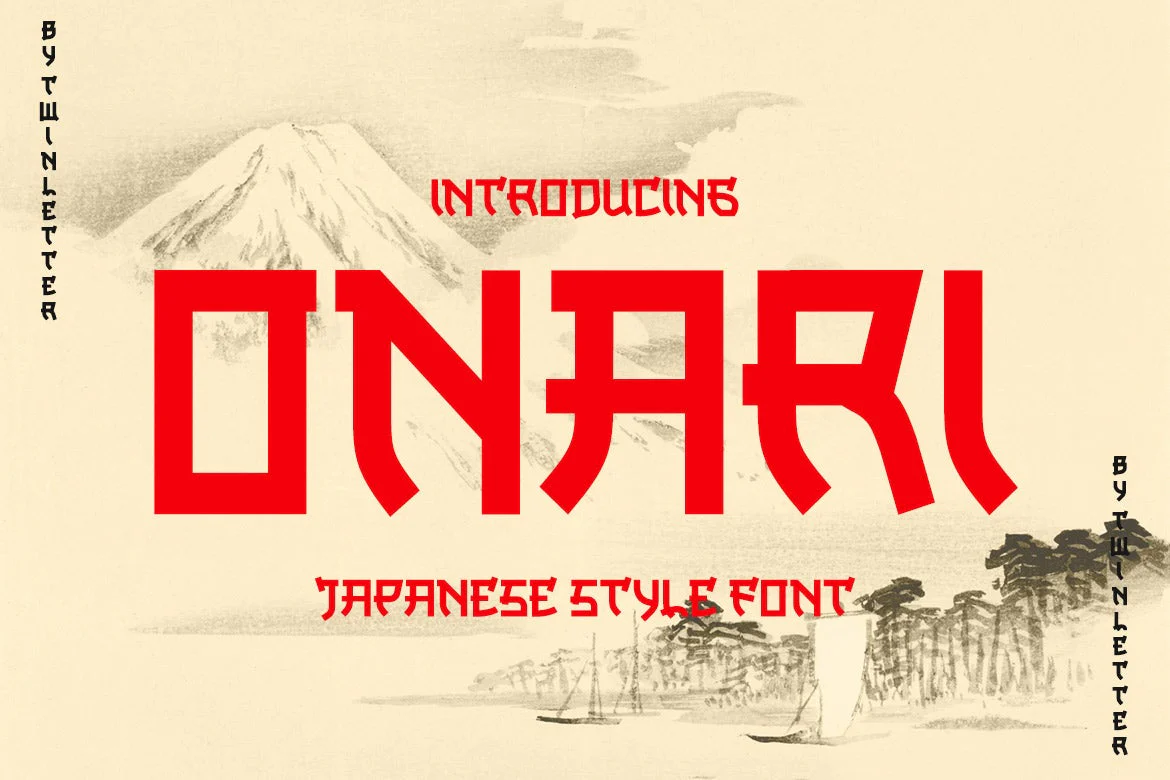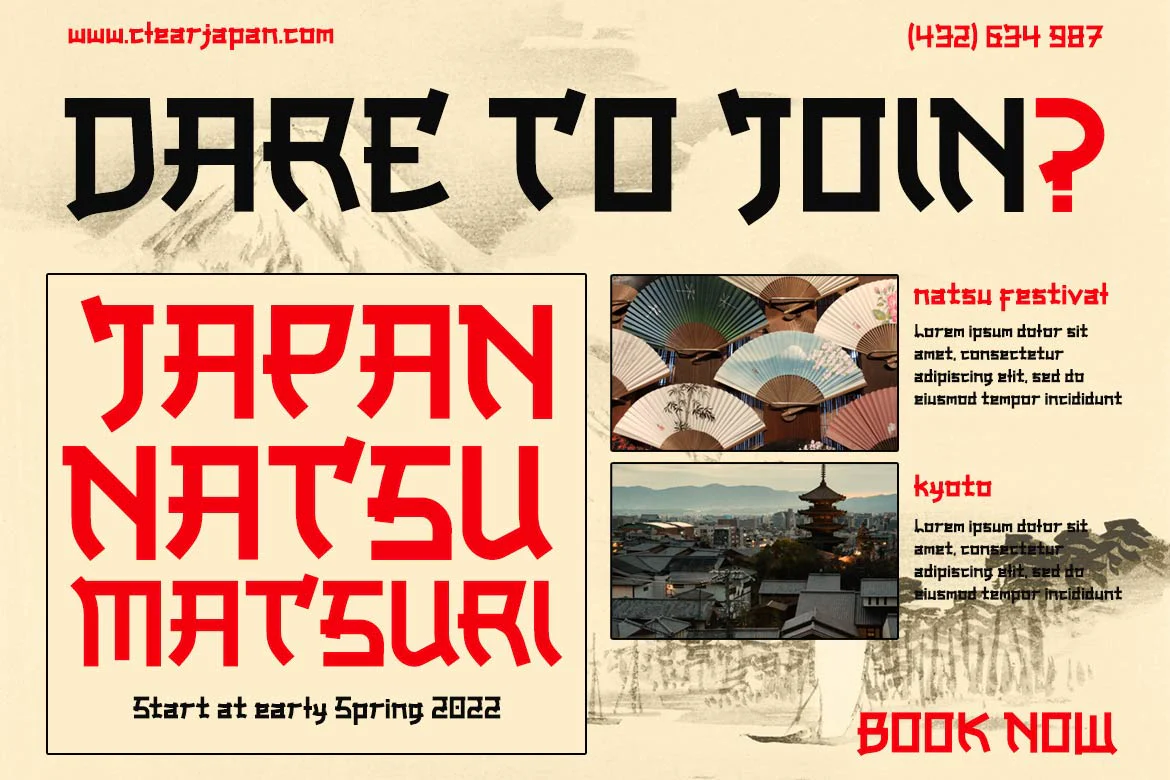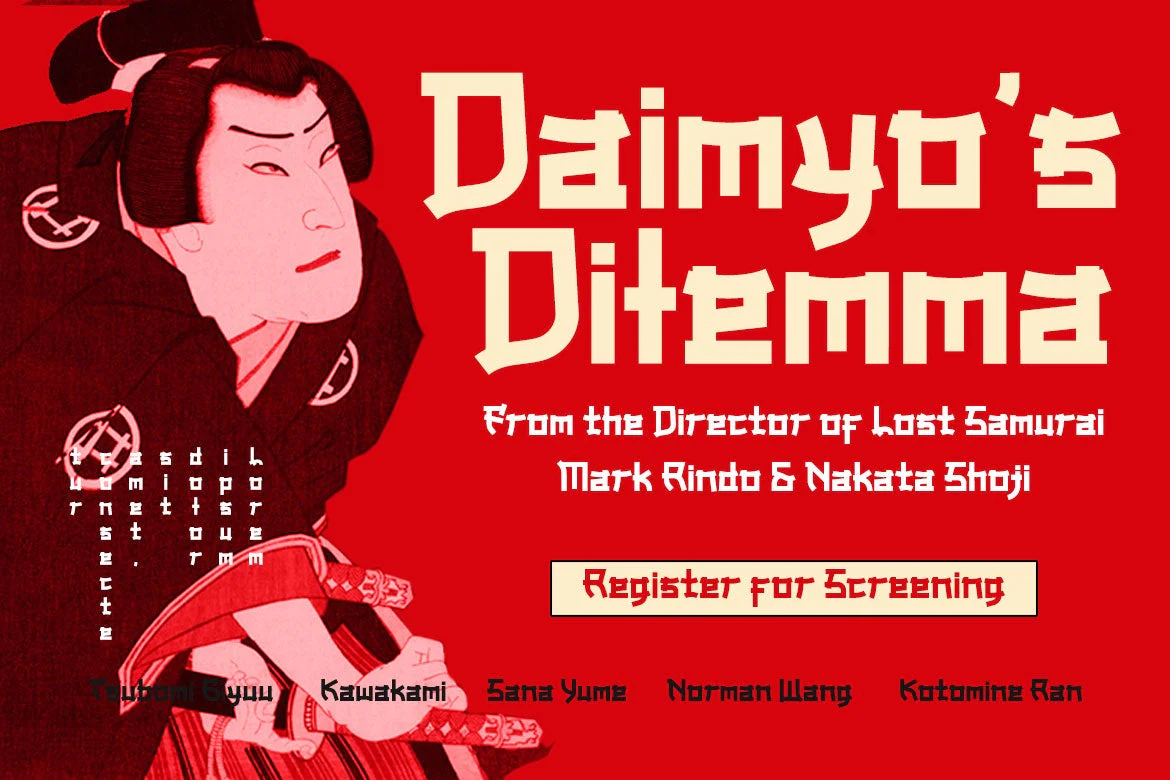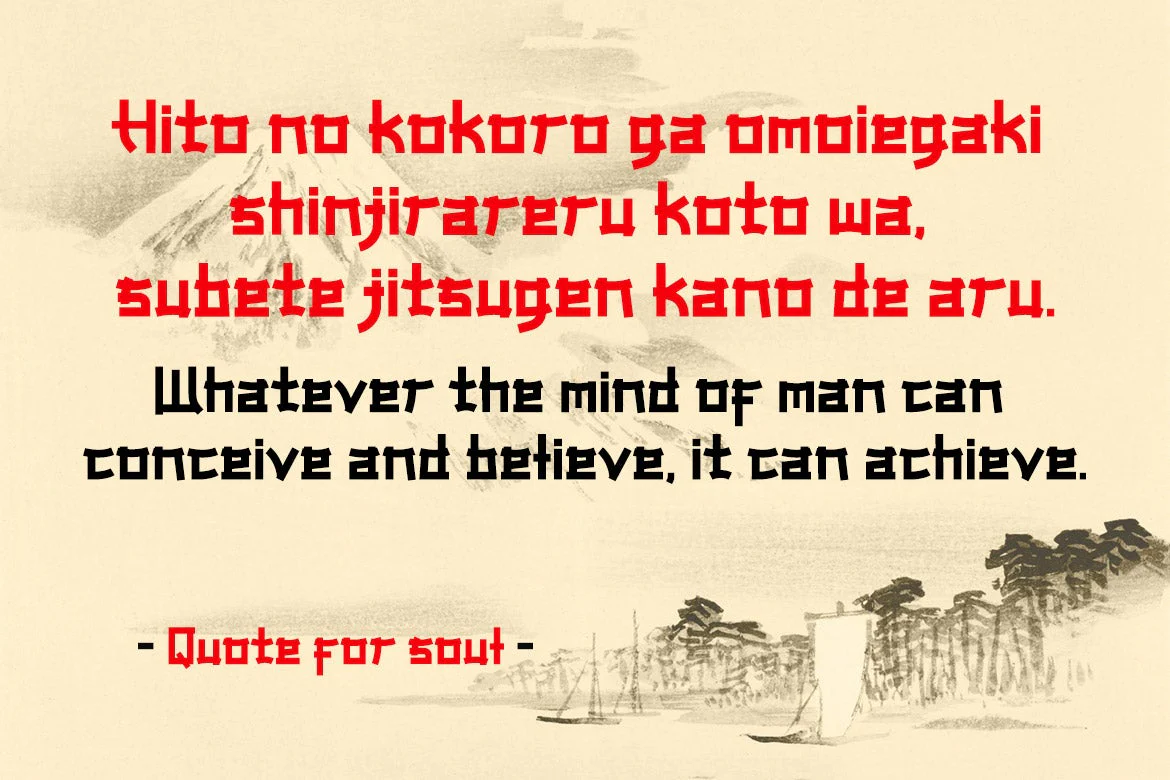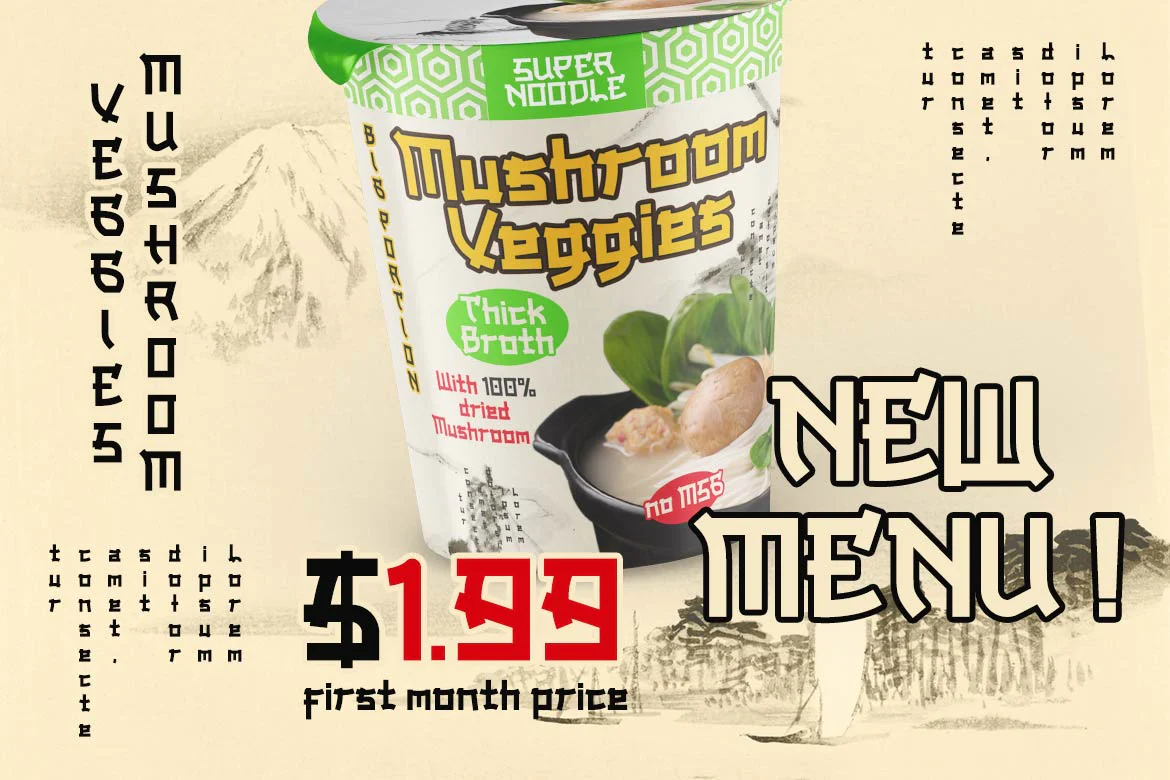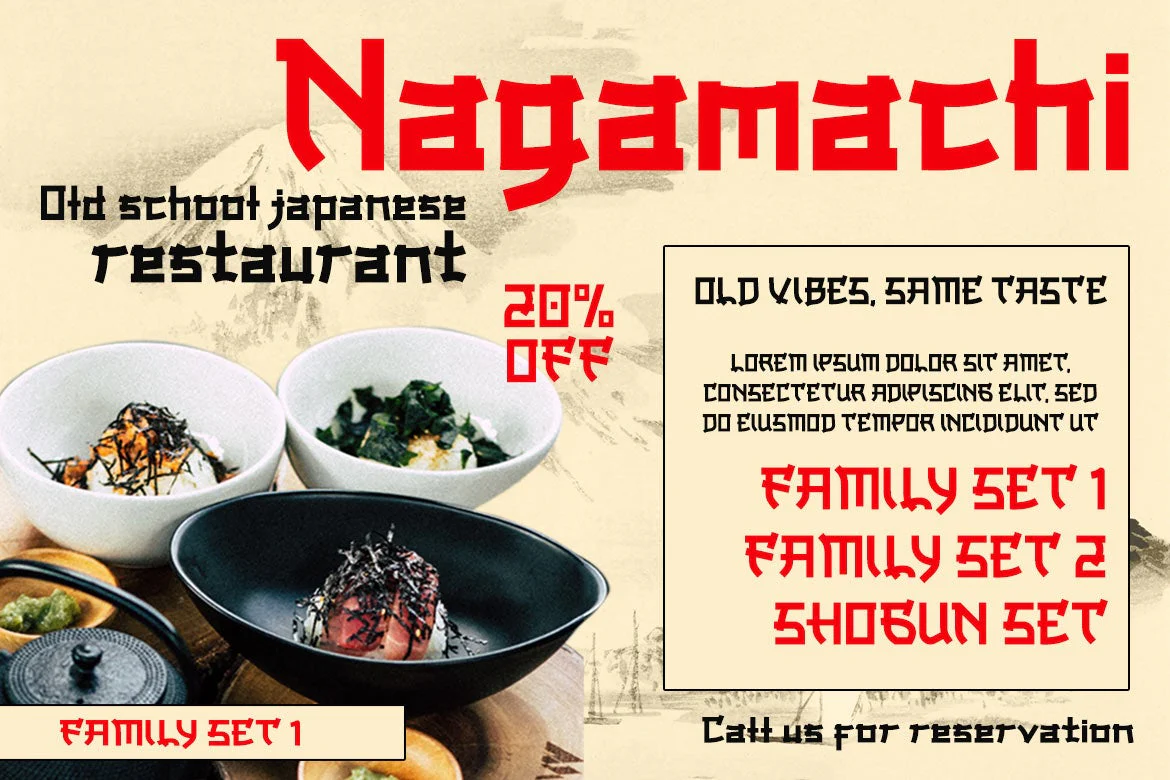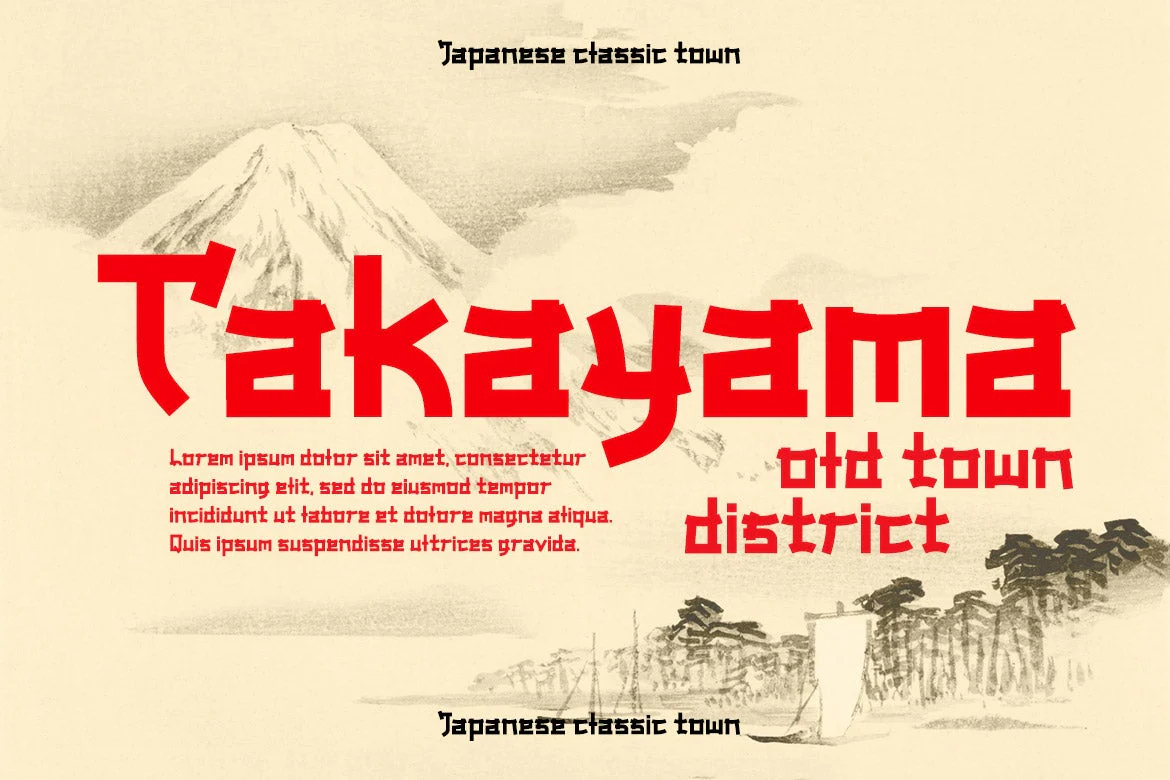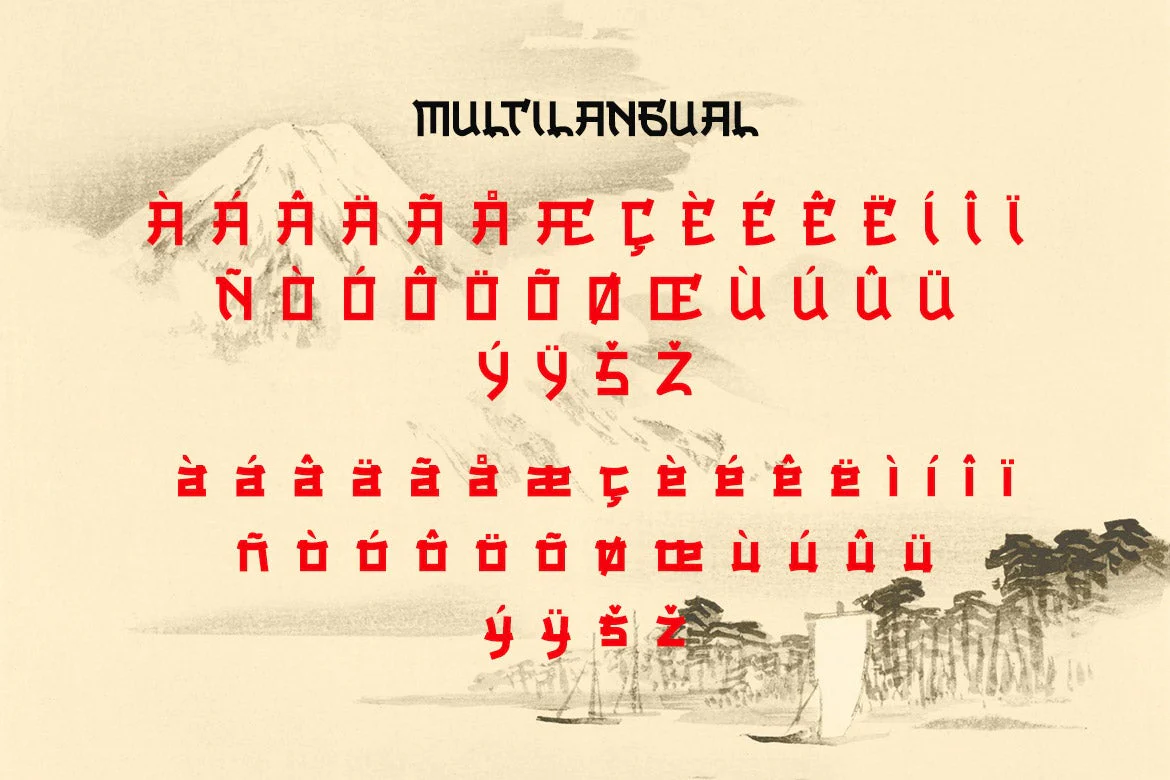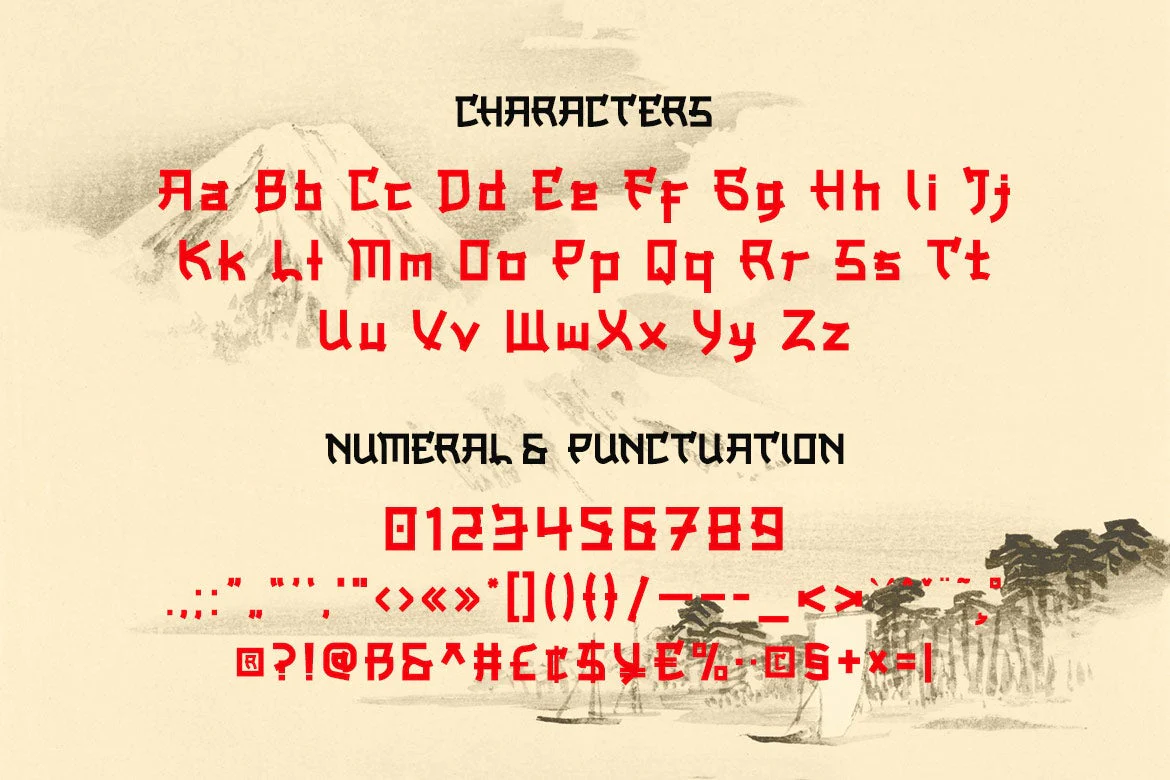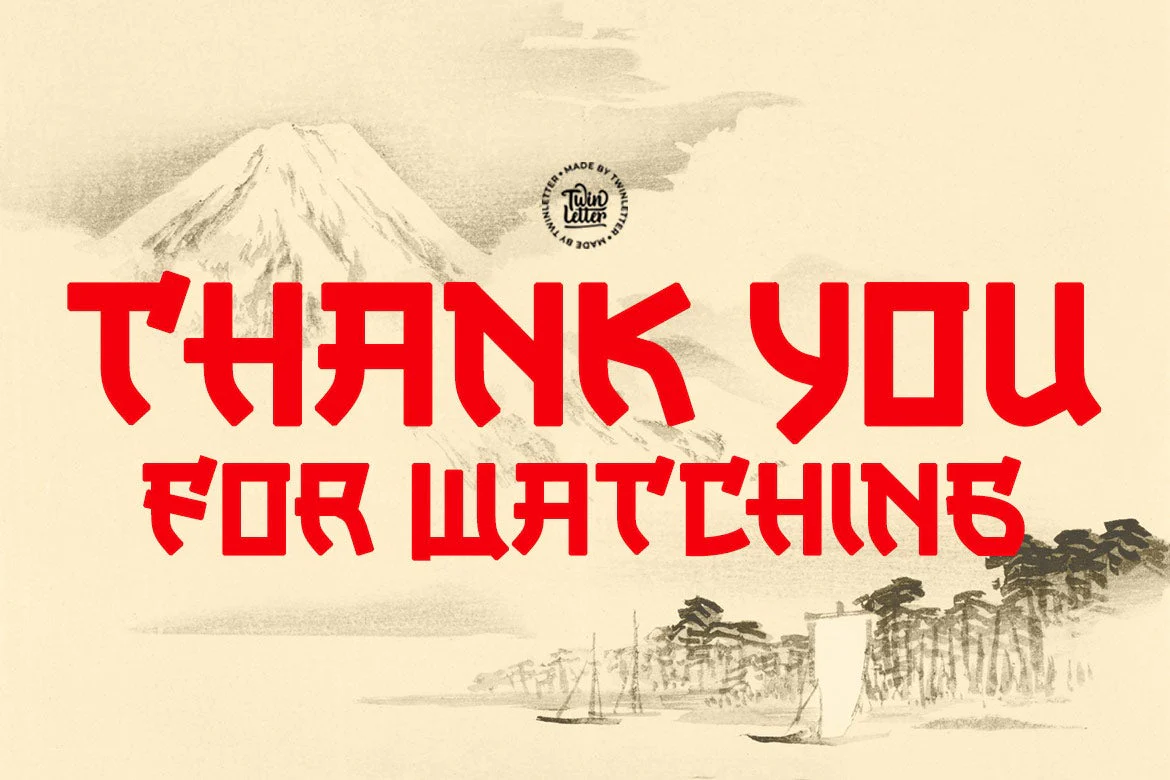
Onari Faux Japanese Font
ONARI is a display font with a strong character, similar to the original Japanese letters, and it has a Japanese flair. This typeface is ideal for your project since it will make your work look stylish, understandable, and, most importantly, it will fascinate your audience.
Logotypes, food banners, branding, brochure, posters, movie titles, book titles, quotes, and more may all benefit from this font.
Of course, using this font in your various design projects will make them excellent and outstanding; many viewers are drawn to the striking and unusual graphic display.
Start utilizing this typeface in your projects to make them stand out.